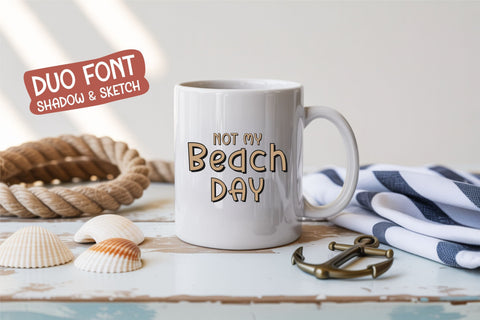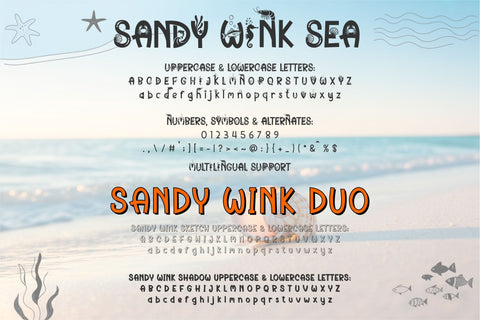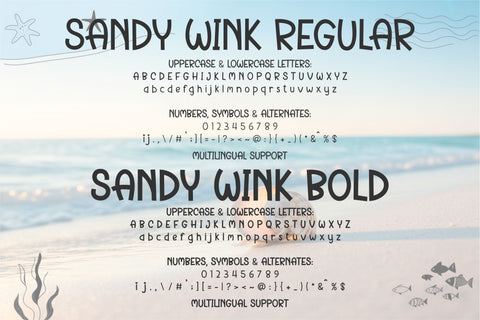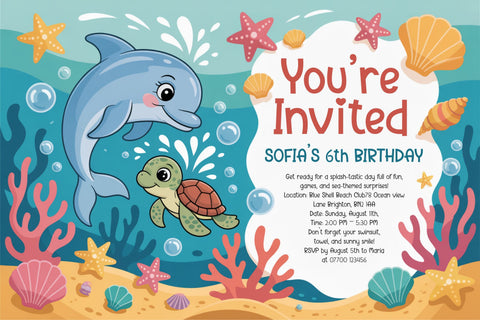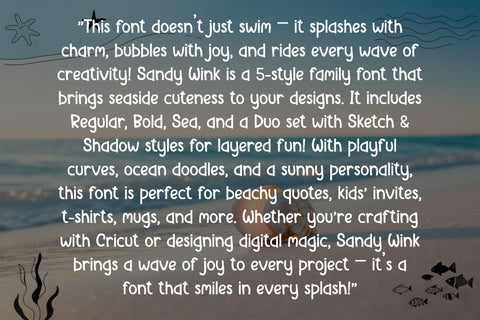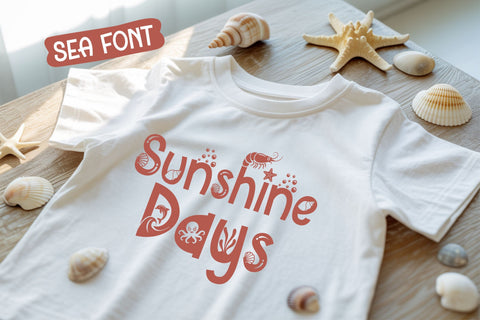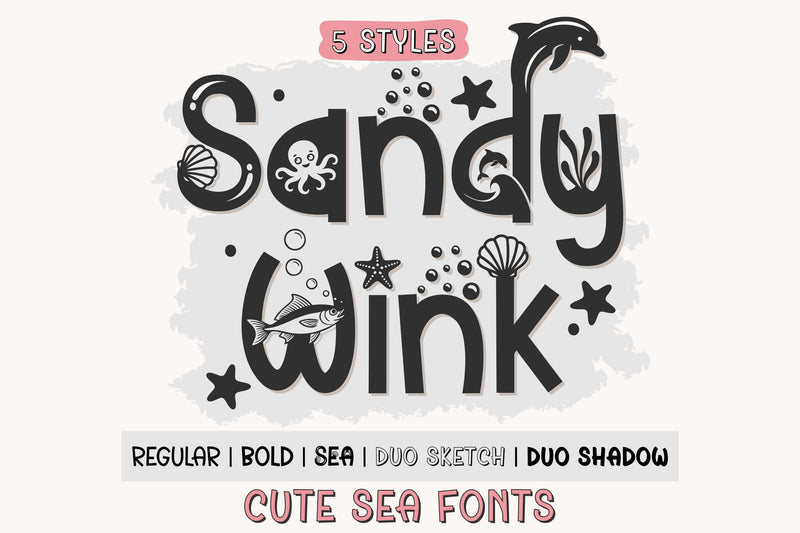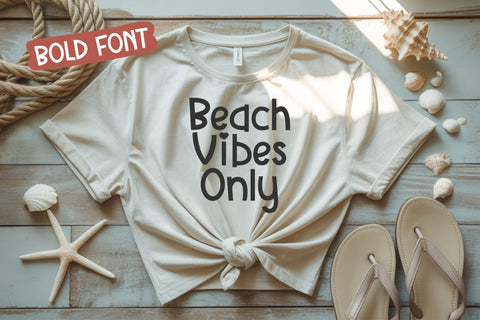
Sandy Wink Fonts | Playful Sea Font Family with 5 Cute Style
Sandy Wink is a cheerful and playful font family designed to make your creative projects pop with personality! With 5 unique styles—Regular, Bold, Sea, Duo Sketch & Duo Shadow—this font is perfect for kids' designs, ocean themes, birthday invitations, t-shirts, mugs, and classroom crafts. The Sea version includes adorable sea elements like fish, shells, and bubbles, while the Sketch and Shadow styles work together as a layered duo for extra fun effects. Whether you're crafting with Cricut or designing in Canva, Sandy Wink adds a splash of charm to every word. OTF format ensures easy installation across platforms. From nursery prints and baby showers to summer parties and sticker packs, Sandy Wink brings a fresh and whimsical vibe to your designs. Compatible with Silhouette, Procreate, and other cutting machines and software. Dive into your next creative project with Sandy Wink—a font family full of waves, giggles, and joy!
✔️ 5 Font Styles: Regular, Bold, Sea, Duo Sketch, Duo Shadow
✔️ Duo Sketch & Shadow are designed to be layered for a fun outline effect
✔️ Full alphabet (A–Z, a–z), numbers (0–9), and punctuation
Perfect for:
T-shirt designs, baby shower invites, printable art, summer-themed party decor, Procreate lettering, digital stickers, teacher printables, greeting cards, and ocean-inspired projects that need a touch of whimsy.